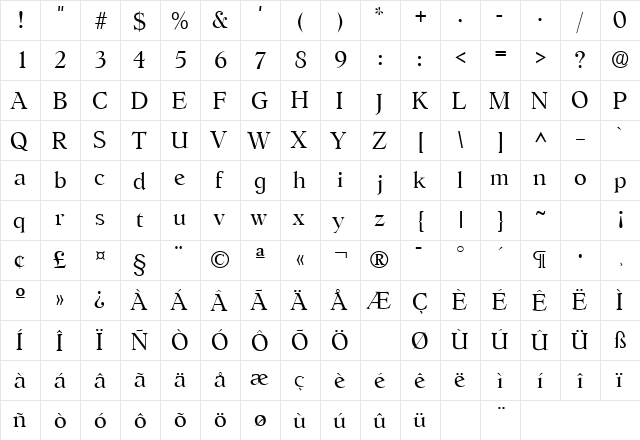
HobokenLH Regular
Design Context for HobokenLH Typeface
HobokenLH is a composed and adaptable typeface that performs quietly and consistently across a wide range of design contexts.
Pro Tip: Pair HobokenLH with a font of contrasting weight or personality to build a more expressive typographic hierarchy.